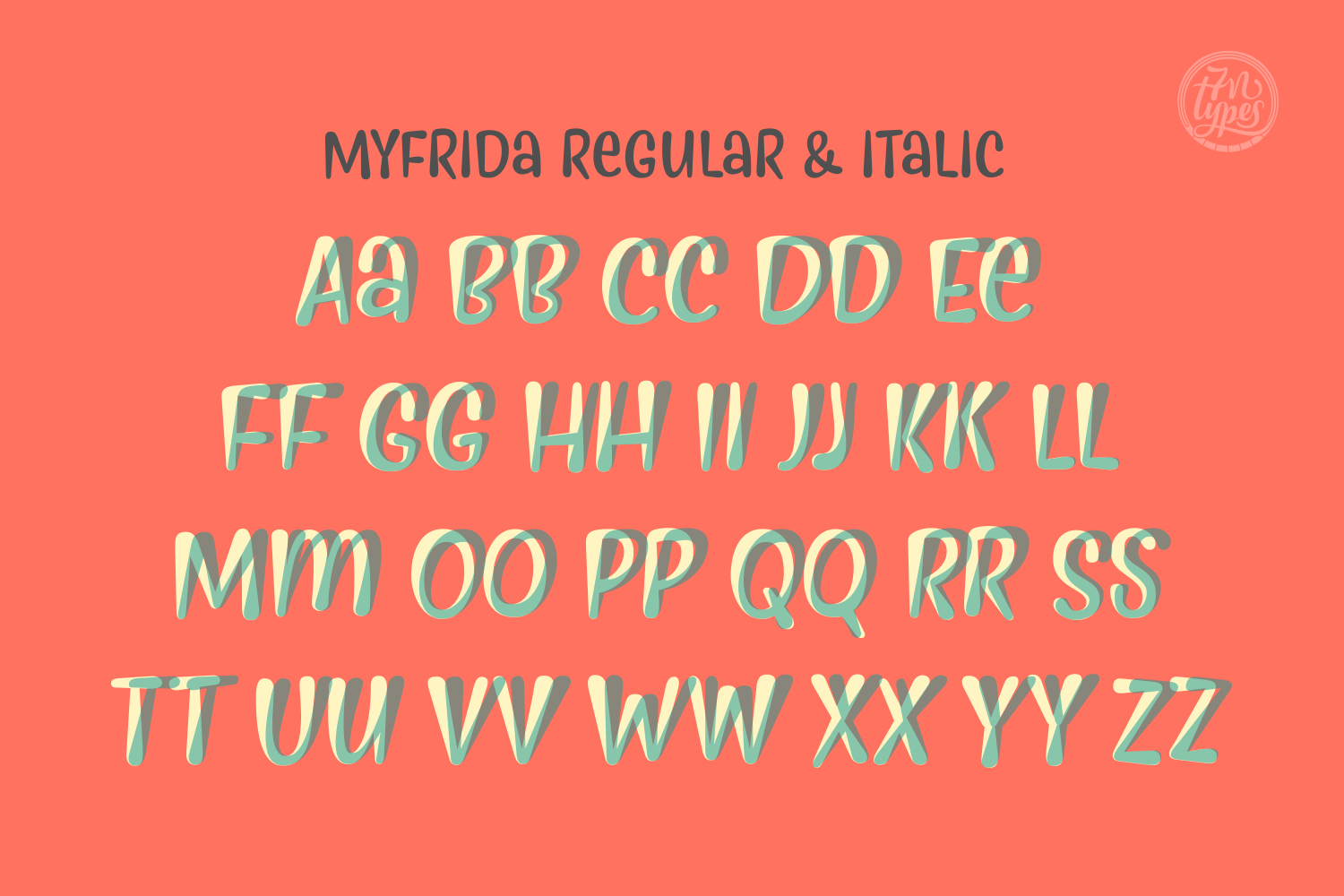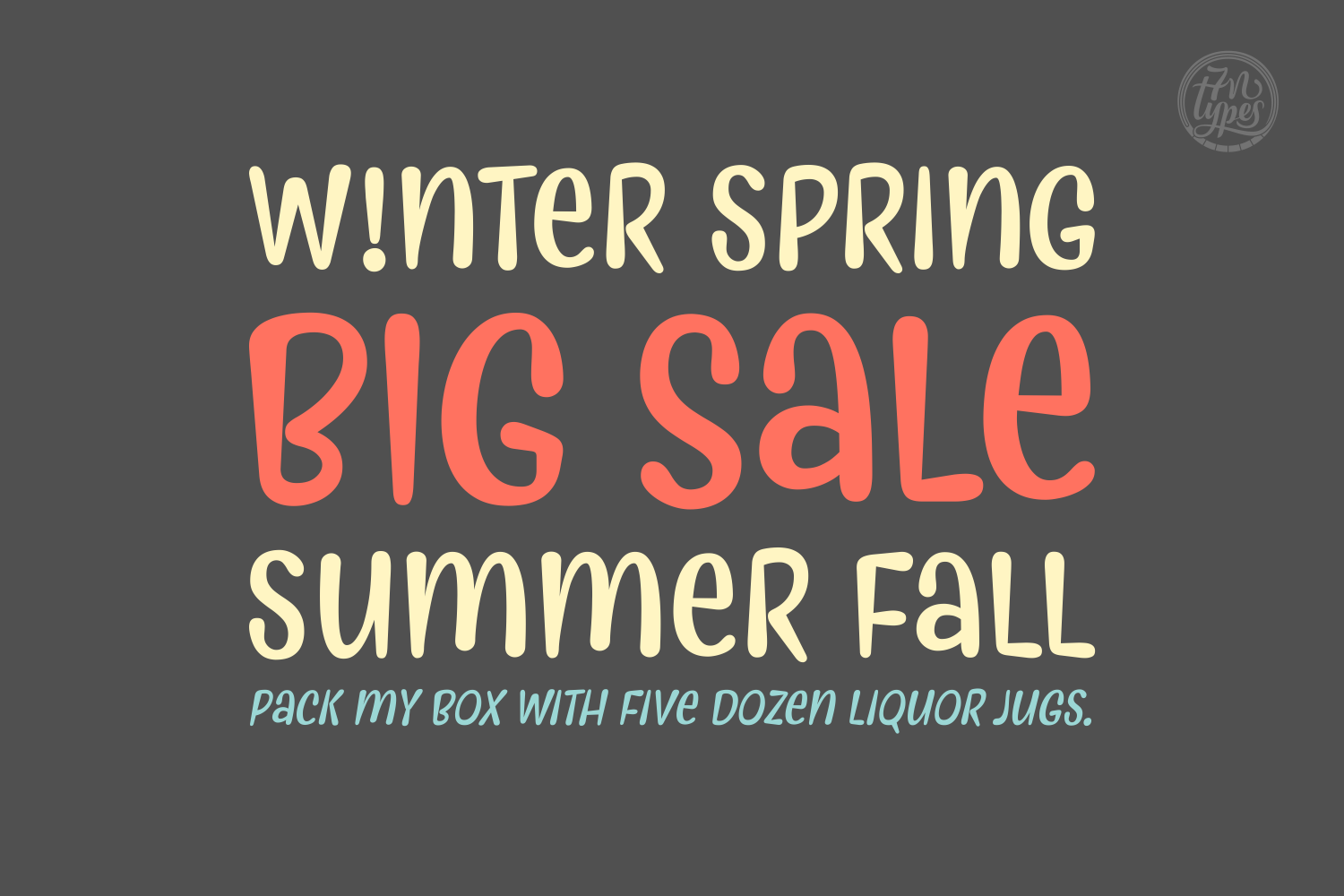
Introduction to Myfrida Regular Font
As a designer, have you ever found yourself stuck in a creative rut, searching for the perfect font to bring your project to life? The moment I stumbled upon the Myfrida Regular Font, I knew I had found a game-changer. Its playful, rounded glyphs seemed to dance across the screen, begging to be used in a kids’ themed design or a corporate project that needed a personal touch.
With the Myfrida Regular Font, you’ll have the perfect design resource to add a touch of whimsy to your creative project. Its versatility makes it a valuable addition to any designer’s toolkit, and the best part? It’s available for a free download, perfect for designers on a budget. Whether you’re working on a high-quality design for a client or a personal project, this font is sure to bring a smile to your face and a professional touch to your work.
Key Features of Myfrida Regular Font
- The Myfrida Regular Font is a high-quality, free design resource ideal for various creative projects.
- This font features a clean and modern design with a transparent background, making it suitable for a wide range of applications.
- This font family includes a single style with 300 glyphs, offering a wide range of characters for effective communication.
Honest Review: Myfrida Regular Font
As a designer, I’m always on the lookout for high-quality design resources that can elevate my creative projects. The Myfrida Regular Font is a great addition to any design arsenal, offering a sleek and modern aesthetic that’s perfect for a wide range of applications.
What works well about the Myfrida Regular Font is its versatility and readability. The font is incredibly easy to read, even at small sizes, and its clean lines make it perfect for both body text and headings. The font is also available for free download, which is a major bonus for designers working on a budget.
- ✨ High-quality design that’s perfect for modern creative projects
- ✨ Easy to read, even at small sizes
- ✨ Clean lines and modern aesthetic
However, there are some limitations to consider. The font only comes in a single weight, which may not be ideal for designers who need a range of font weights for their project. Additionally, the font may not be suitable for use on a transparent background, as the text may not show up clearly.
Overall, the Myfrida Regular Font is a solid addition to any designer’s toolkit. While it may not be perfect for every project, its high quality and versatility make it a great choice for a wide range of creative applications.
The Myfrida Regular Font is a high-quality design resource ideal for various creative projects. Its clean and modern design makes it perfect for use in a wide range of applications.
Tips for Getting the Most Out of Myfrida Regular Font
Use the font with a transparent background to create a modern and sleek design. Experiment with different font sizes and colors to achieve the desired look for your creative project.
The Myfrida Regular Font is perfect for use in various design projects, including:
- Business cards and stationery
- Social media graphics and advertisements